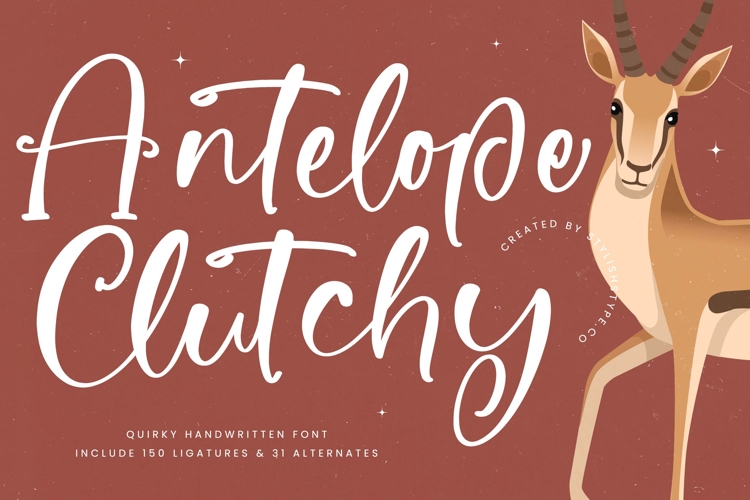
Antelope Clutchy - Quirky Handwritten Font Script
Ignite your designs with the distinctive charm of a truly personalized touch. Introducing Font Antelope Clutchy - Quirky Handwritten Font Script, a captivating typeface that effortlessly combines casual elegance with a playful, authentic handwritten aesthetic. Its organic flow and natural connections create an inviting visual narrative, perfect for projects demanding warmth and character, making it an essential addition for those seeking to infuse their work with genuine personality. Beyond mere aesthetics, Font Antelope Clutchy - Quirky Handwritten Font Script is engineered for exceptional design flexibility. Boasting an impressive collection of 150 ligatures and 31 alternates, this expressive typography allows for seamless customization, ensuring every word appears uniquely hand-crafted rather than digitally repetitive. This rich feature set provides designers with the tools to achieve truly bespoke results, enhancing the overall sophistication and allure of their creative endeavors. Unlock unparalleled potential for your branding and creative ventures with this versatile script.